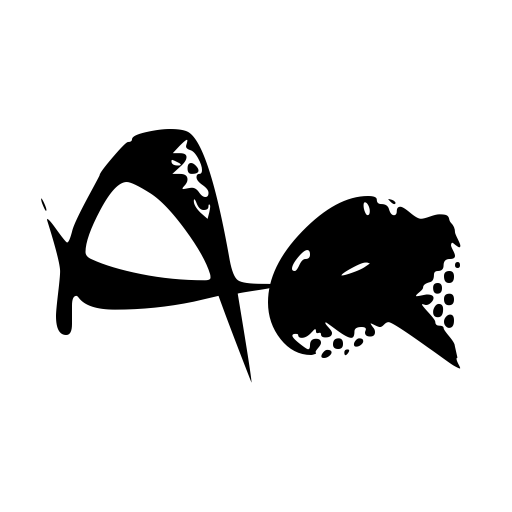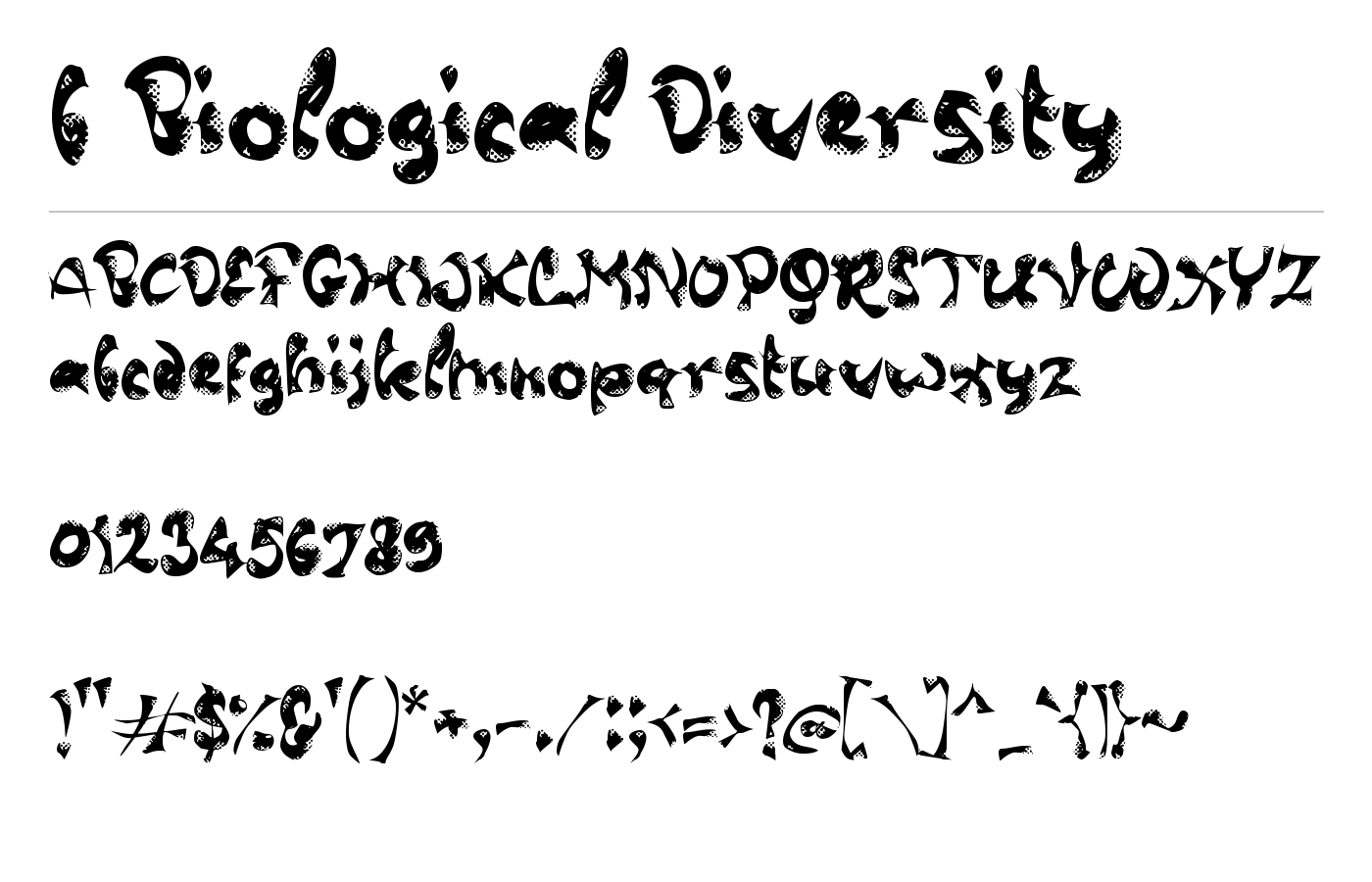
b Biological Diversity is a highly decorative, script-inspired display font that features thick, textured strokes with an organic, almost hand-painted feel. Its irregular shapes and heavy contrast between solid black areas and stippled highlights give it a playful, lively personality, perfect for creative projects that want to evoke nature, uniqueness, or artistic expression. This font works best for eye-catching headlines, posters, or logos where a bold, unconventional style can stand out and add character.
b Biological Diversity Font